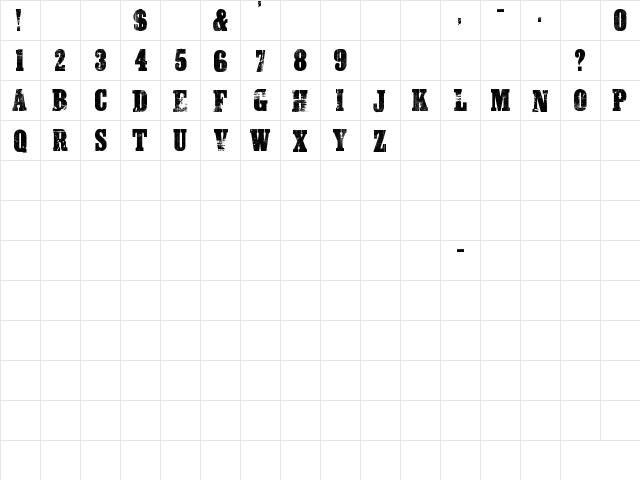
Danger Zone Warning Regular
| Designer | IMAGEX |
Design Context for Danger Zone Warning Typeface
Danger Zone Warning is a composed and adaptable typeface that performs quietly and consistently across a wide range of design contexts.